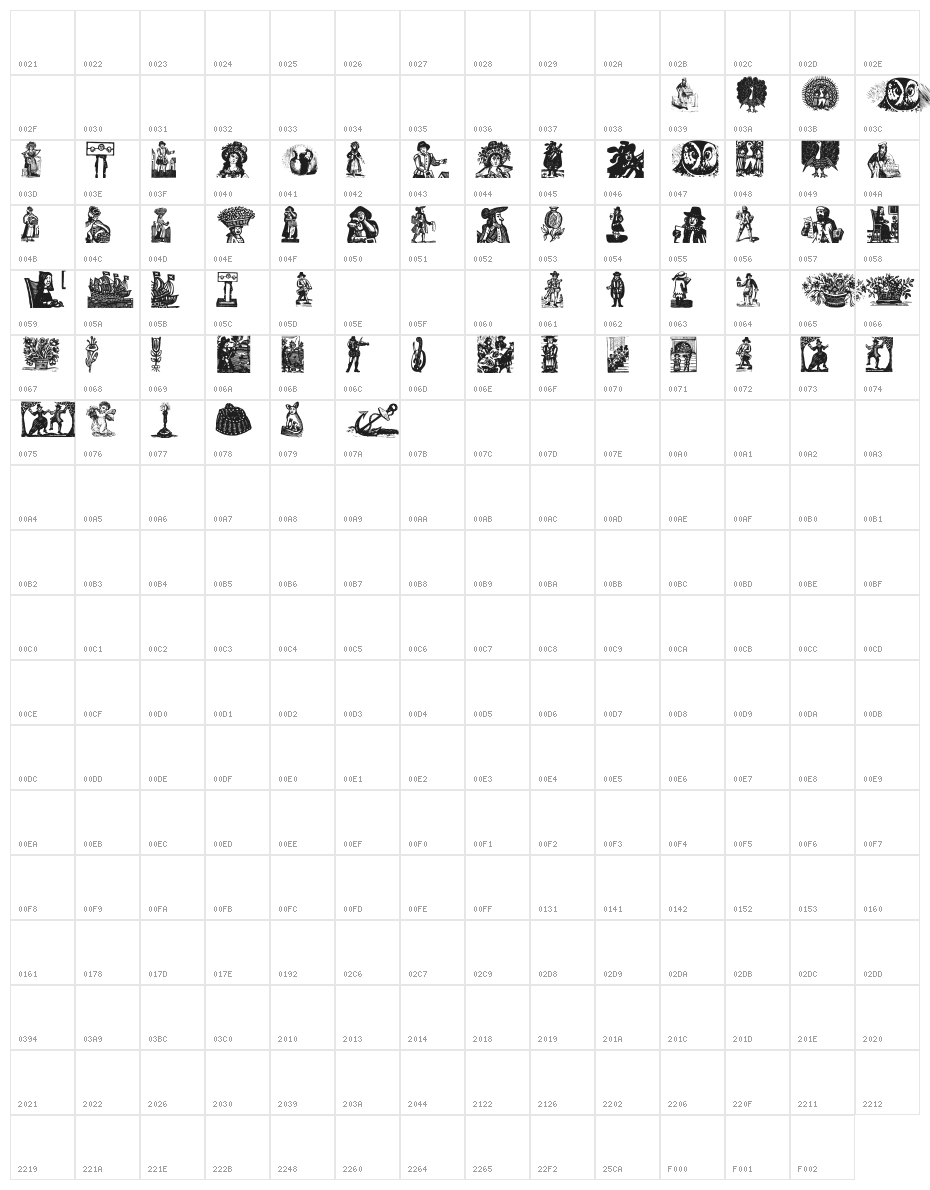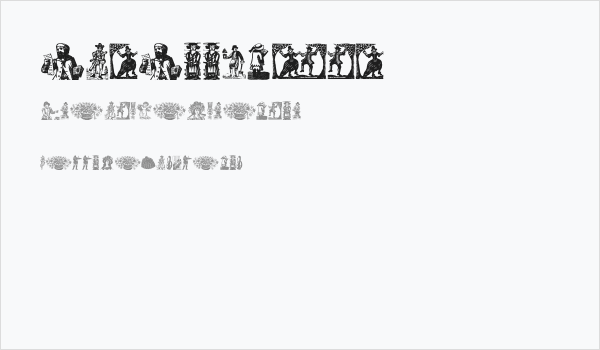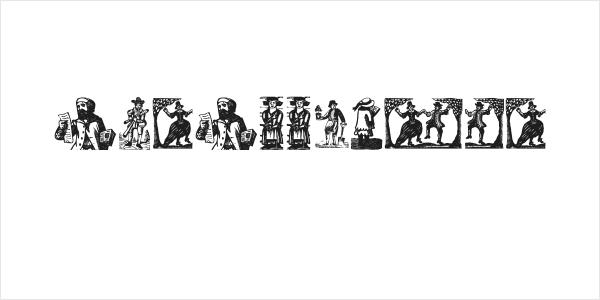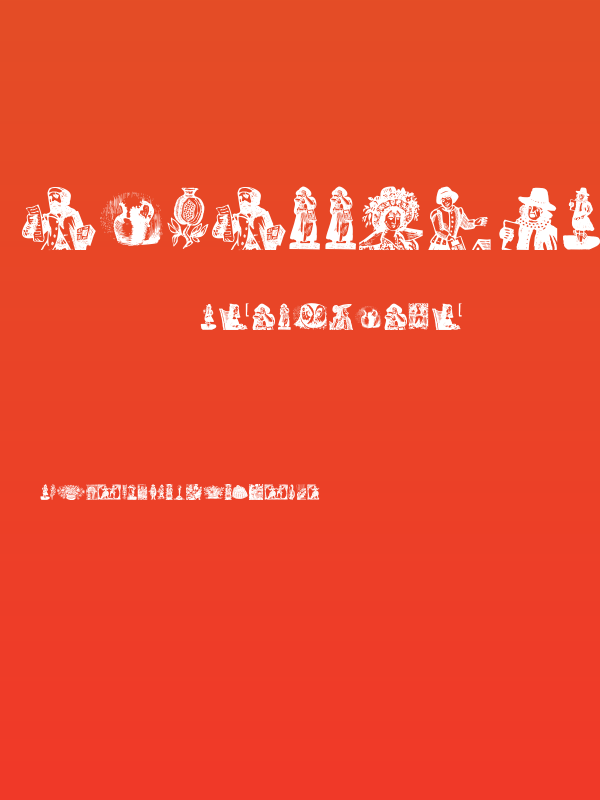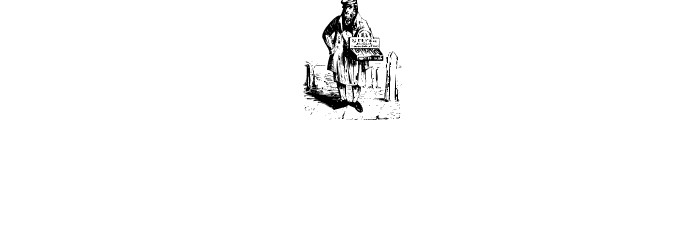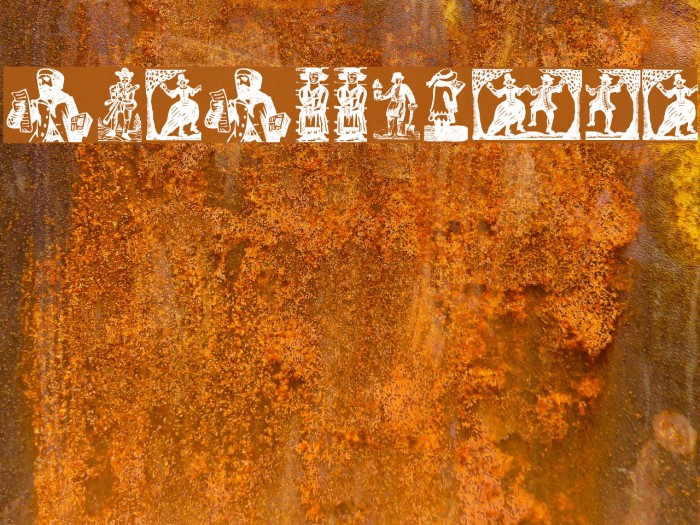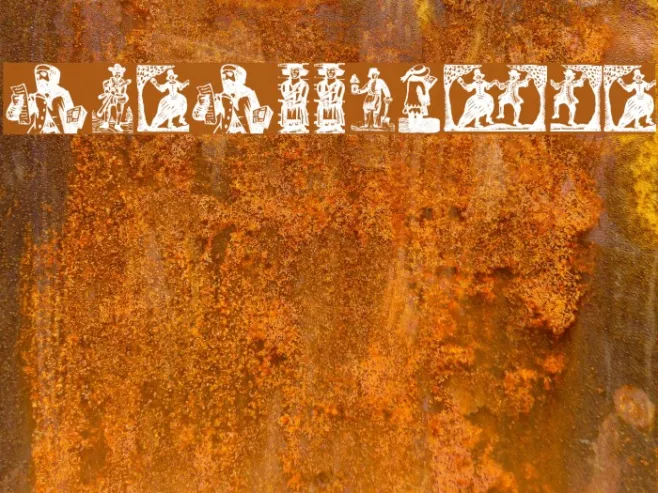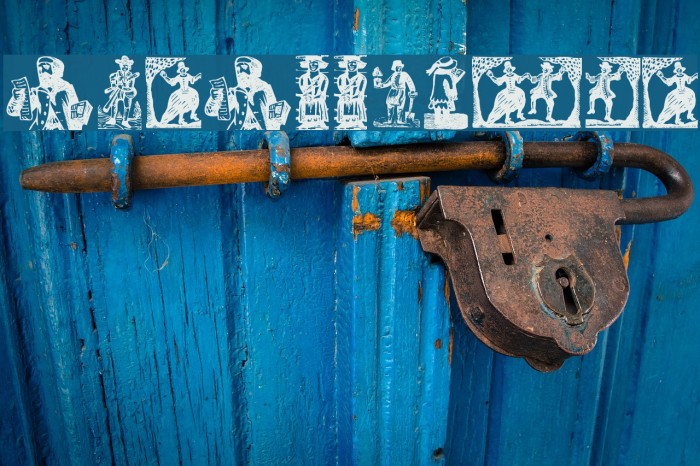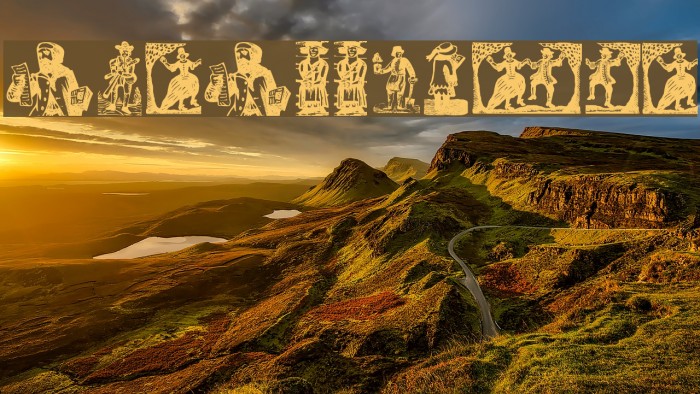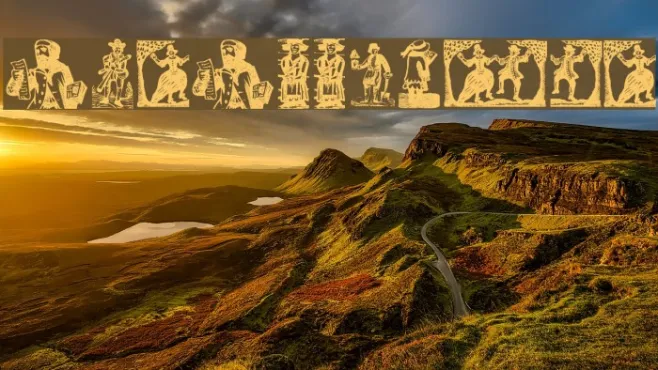
WasWoodcuts Font
WasWoodcuts Description
A collection of highly detailed, black-and-white woodcut-style illustrations depicting people, animals, objects, and scenes, rendered with bold lines and intricate textures reminiscent of historical printmaking.
| Overall Style | Vintage, Decorative, Handcrafted |
| Use Case | Decorative elements, Illustrative accents, Thematic branding |
| Proposed Projects | Book covers, historical posters, vintage packaging, decorative borders, artistic branding, educational materials. |